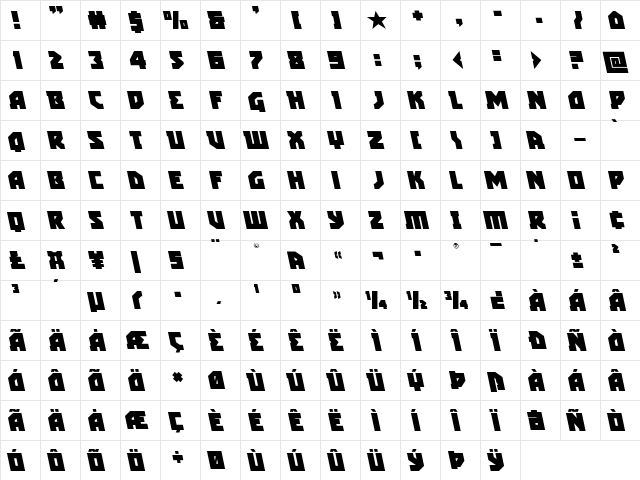
Arctic Guardian Leftalic Italic
Design Context for Arctic Guardian Leftalic Typeface
Arctic Guardian Leftalic is a composed and adaptable typeface that performs quietly and consistently across a wide range of design contexts. Its italic angle brings a sense of urgency and motion to the letterforms.
Pro Tip: Use Arctic Guardian Leftalic for emphasis, pull quotes, and subheadings where its slanted energy can add rhythm to the layout.